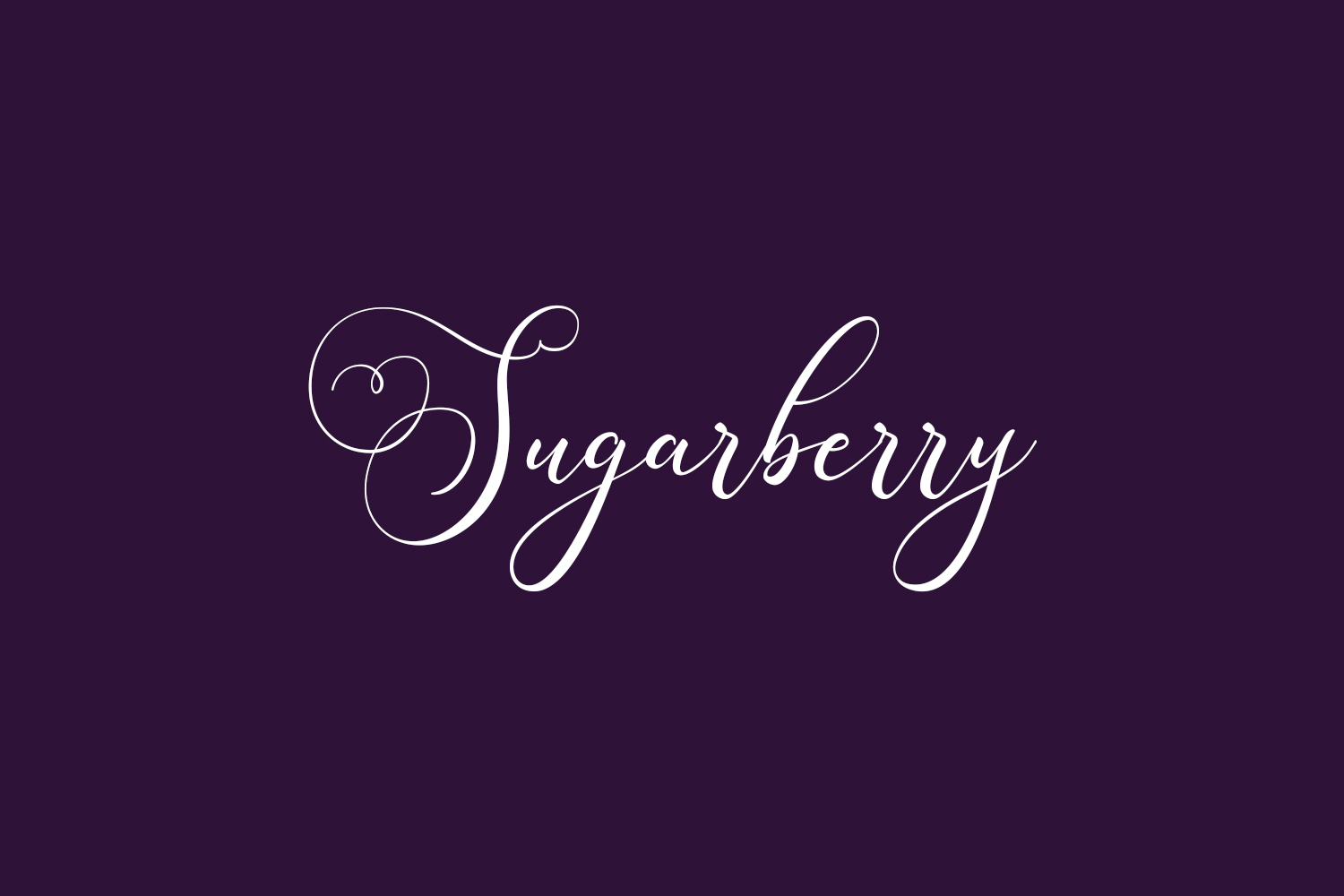
Sugarberry Free Font is a beautiful and unique handwritten font. Get inspired by its unique style. Sugarberry Free Font was designed by Vunira Design and is free for personal use only. Please purchase the full version for commercial use.
Designed by Vunira Design